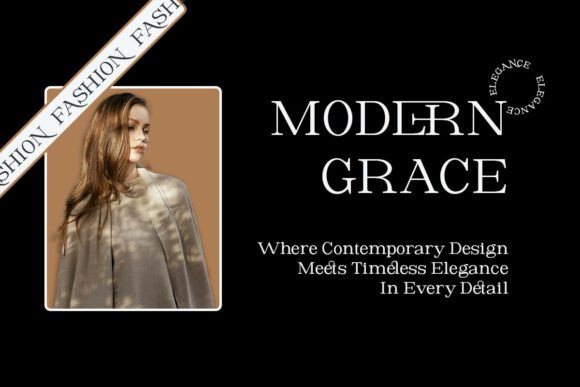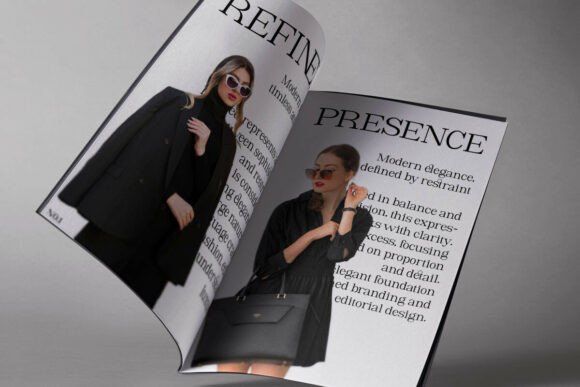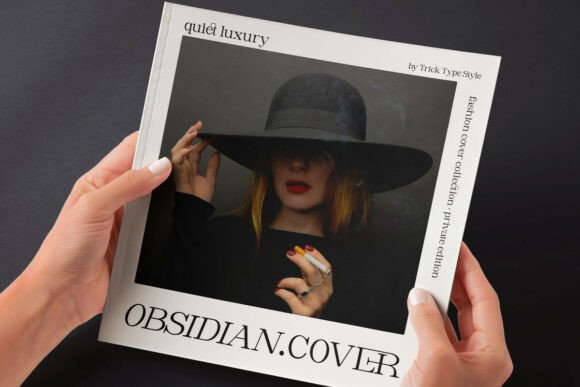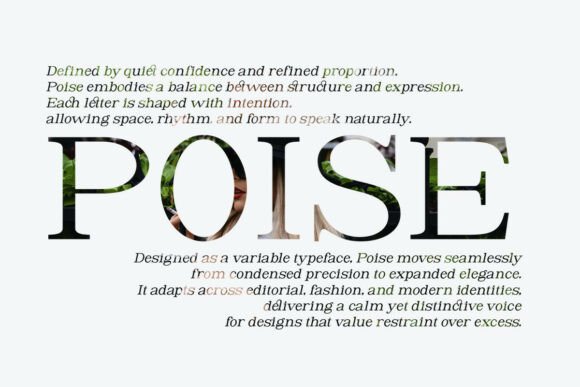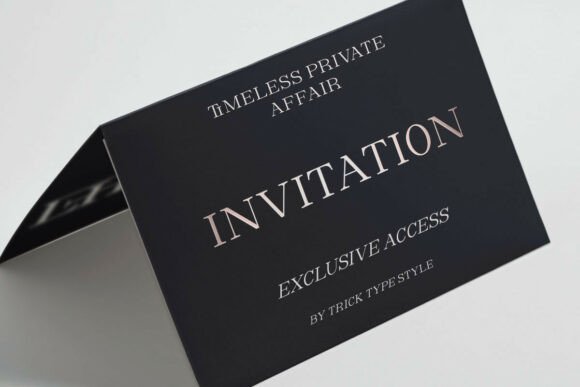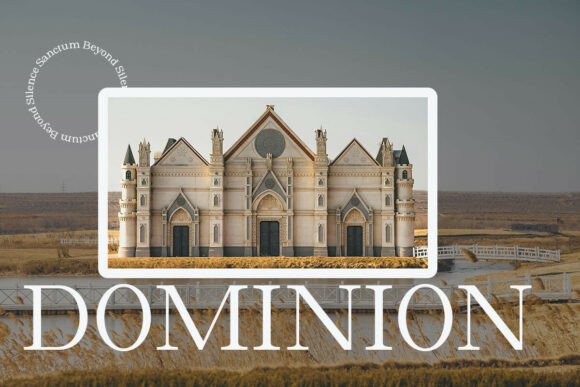
Redefine Luxury with Astorina Font: The Epitome of Elegance and Sophistication
In the realm of typography, few fonts manage to convey the essence of luxury and sophistication as effortlessly as Astorina. This elegant modern serif font is a masterclass in refined design, expertly balancing sharp, traditional serifs with beautiful, flowing ligatures and circular flourishes. The result is a typeface that exudes high-end fashion and classic editorial prestige, making it the perfect choice for projects that demand a touch of class and understated beauty.
The Design Philosophy Behind Astorina
Astorina’s design is rooted in a deep understanding of the nuances of luxury typography. Its refined silhouette is characterized by delicate curves and authoritative presence, creating a sense of balance and harmony that is essential for conveying sophistication and elegance. The font’s sharp serifs and flowing ligatures add a level of complexity and visual interest, making it perfect for a wide range of applications, from boutique branding and wedding stationery to luxury magazine headlines and premium product packaging.
Key Features of Astorina Font
- Sharp, traditional serifs: Astorina’s serifs are designed to evoke a sense of tradition and heritage, while also providing a level of sophistication and elegance.
- Beautiful, flowing ligatures: The font’s ligatures add a level of beauty and refinement, creating a sense of fluidity and continuity.
- Circular flourishes: Astorina’s flourishes are designed to add a touch of elegance and sophistication, making the font perfect for high-end applications.
- Refined silhouette: The font’s silhouette is characterized by delicate curves and authoritative presence, creating a sense of balance and harmony.
Applications for Astorina Font
Astorina’s versatility and elegance make it perfect for a wide range of applications, including:
- Boutique branding: Astorina’s sophisticated and elegant design makes it perfect for boutique brands that want to convey a sense of luxury and refinement.
- Wedding stationery: The font’s delicate curves and flowing ligatures make it perfect for wedding stationery, such as invitations, menus, and programs.
- Luxury magazine headlines: Astorina’s authoritative presence and elegant design make it perfect for luxury magazine headlines, adding a touch of sophistication and glamour.
- Premium product packaging: The font’s refined silhouette and elegant design make it perfect for premium product packaging, conveying a sense of high-end quality and sophistication.
Why Choose Astorina Font?
With so many fonts available, why choose Astorina? Here are just a few reasons:
- Unique and distinctive design: Astorina’s elegant and sophisticated design sets it apart from other fonts, making it perfect for designers and crafters who want to create something truly unique.
- Versatility: The font’s versatility makes it perfect for a wide range of applications, from boutique branding to luxury magazine headlines.
- Elegance and sophistication: Astorina’s refined silhouette and elegant design convey a sense of luxury and sophistication, making it perfect for high-end applications.
In conclusion, Astorina font is a true masterpiece of typography, offering a unique blend of elegance, sophistication, and versatility. Whether you’re a designer or crafter looking to create something truly special, Astorina is the perfect choice. With its refined silhouette, flowing ligatures, and circular flourishes, Astorina is sure to transform simple text into a statement of style and sophistication.